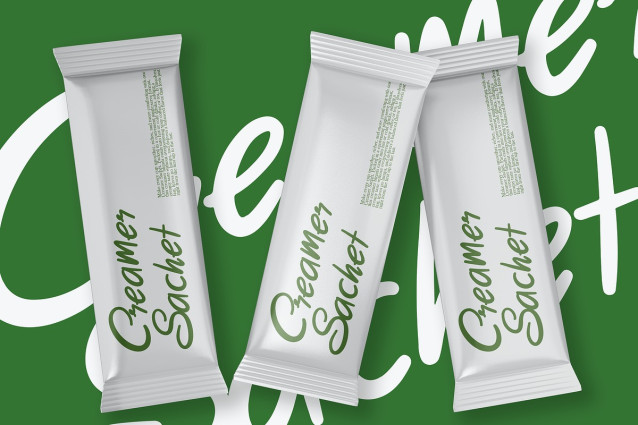
Rushmark Font
Rushmark Font is a bold, groovy brush handwriting font built with rhythm and personality. The strokes feel smooth yet expressive, like quick hand lettering with a retro twist. It carries a playful 70s vibe while staying readable and balanced. Each curve flows naturally, so headlines feel energetic without looking chaotic. Use Rushmark for branding, posters, packaging, apparel, social media graphics, and bold quote designs. As a result, your layouts feel warm, fun, and full of character.
Fast layouts with the Rushmark Brush Font
Start with short, bold phrases so the groovy curves stay the hero. After that, pair Rushmark with a clean sans serif or minimal serif for supporting text. Because the strokes are smooth and rounded, it works beautifully on warm palettes and soft backgrounds. In addition, try stacking words or slightly tightening spacing for a vintage poster look. Finally, save reusable palettes like mustard and cream, burnt orange and brown, dusty pink and charcoal, or black and beige for quick retro projects.